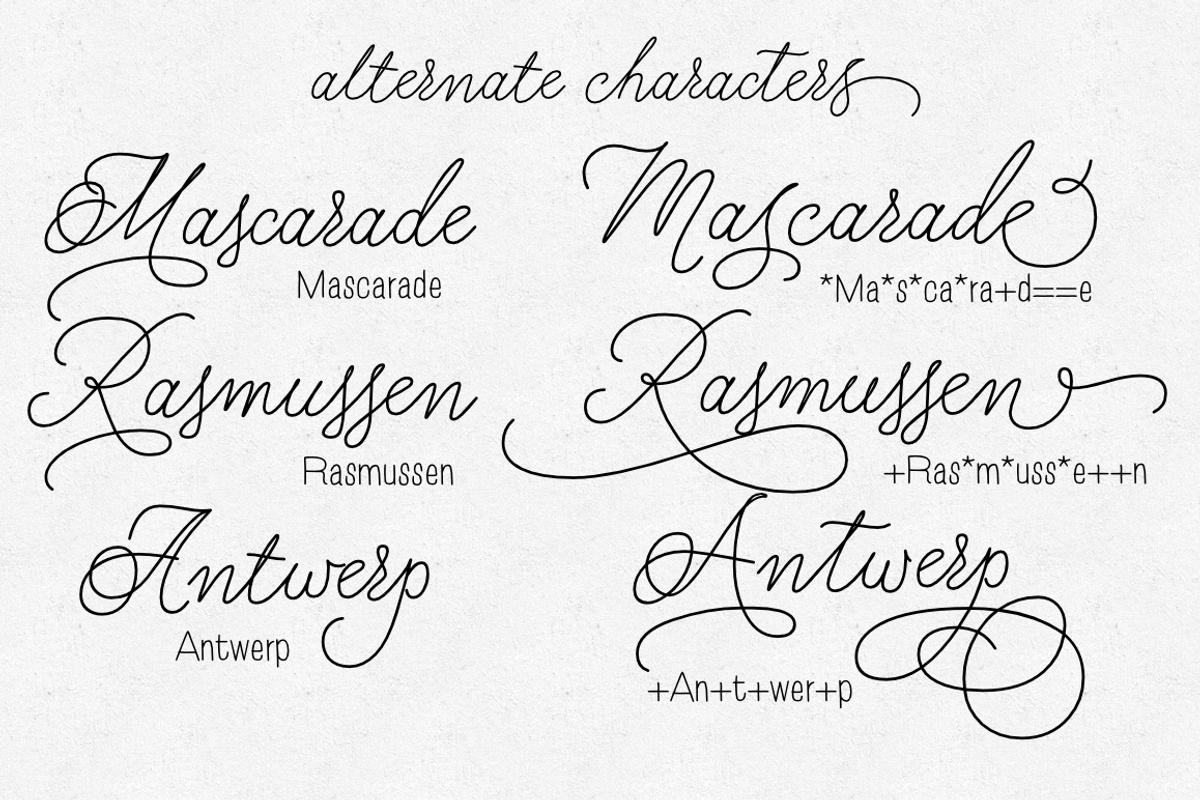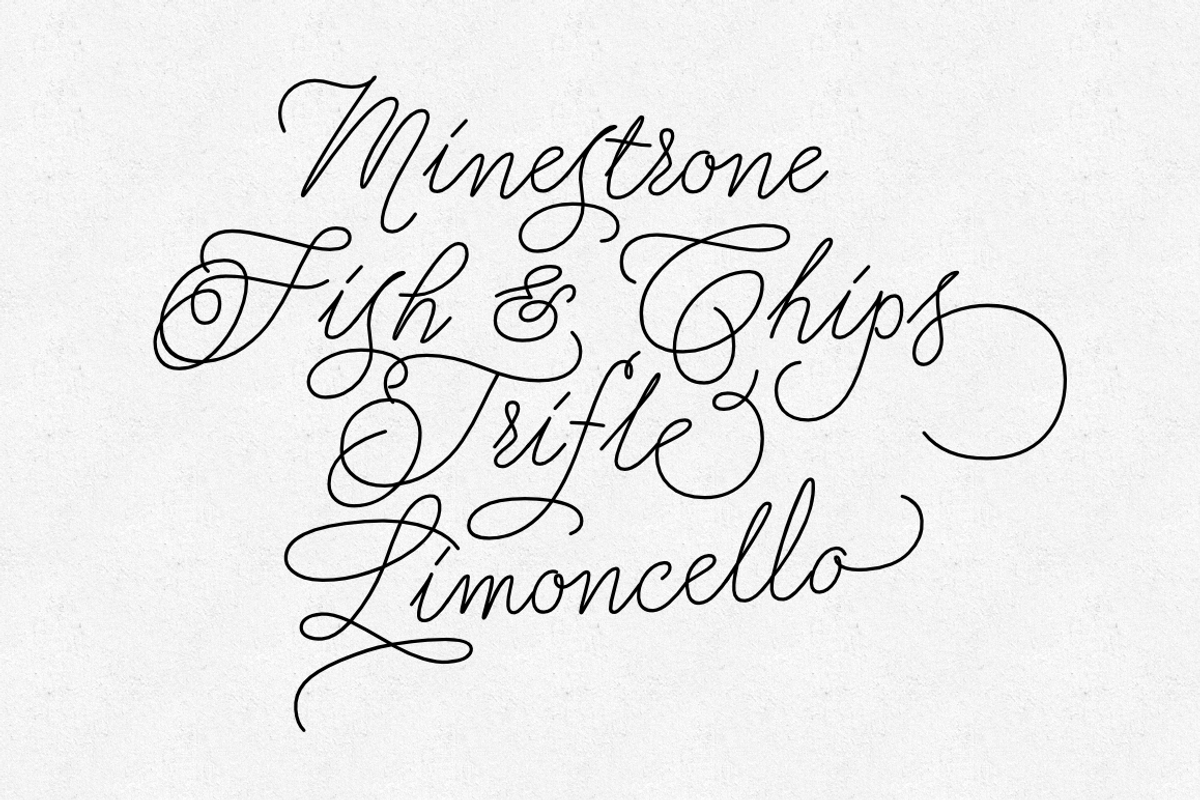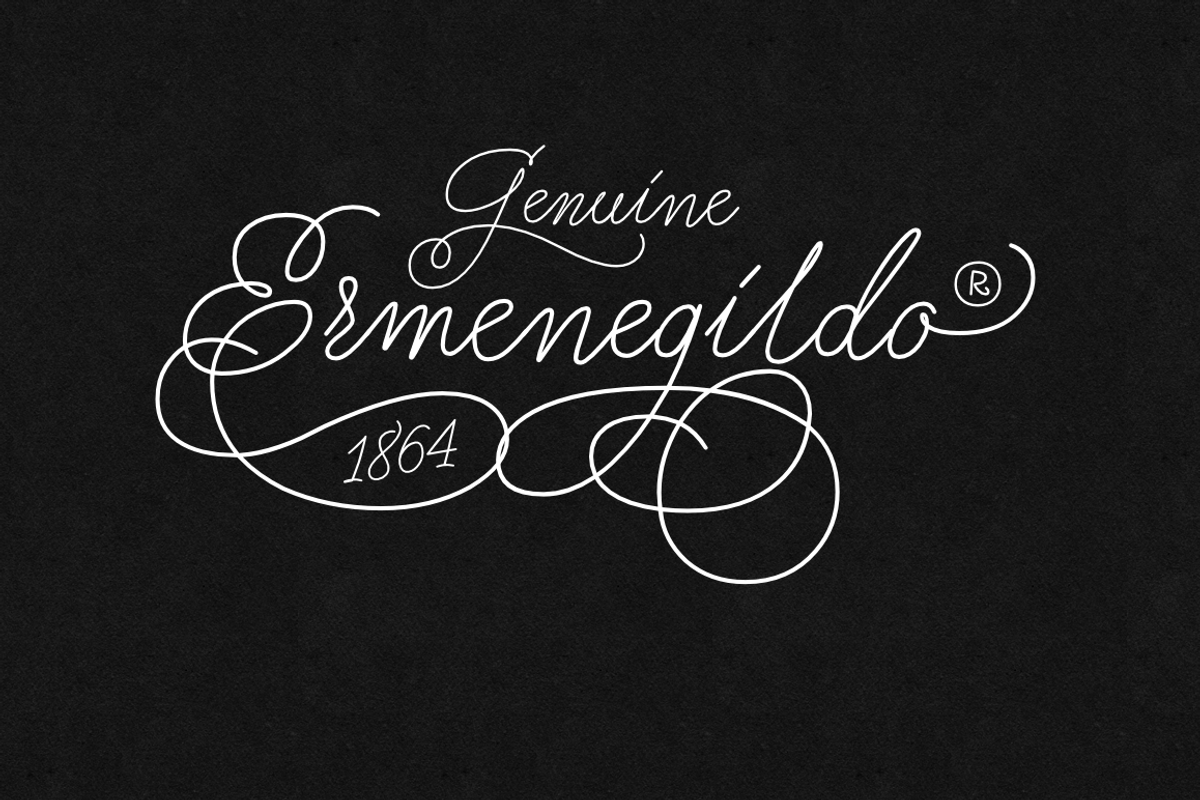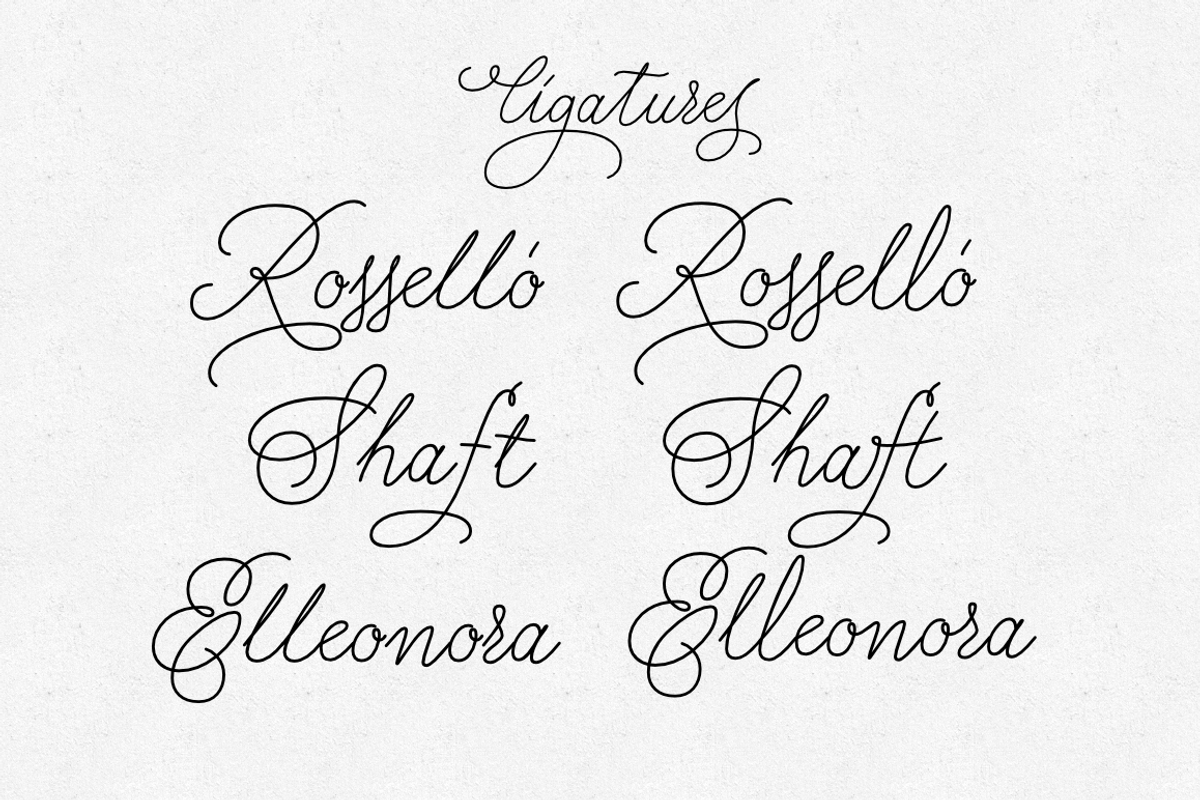
Charlize - 3 fonts
Charlize - 3 fonts by Leitmotif is a font selected for branding, posters, packaging, typography.
- Charlize pro is the most complete style, it contains over 740 glyphs.
- Language support includes Western, Central and Eastern European character sets, as well as Baltic and Turkish languages.
- Charlize is a handwritten, fully connected script with ligatures to help with flow and readability.
- Each lowercase letter has six variations (uppercase letter has two).
- Charlize one and Charlize two have less glyphs than the Pro one, they only contain some selected alternates and ligatures.